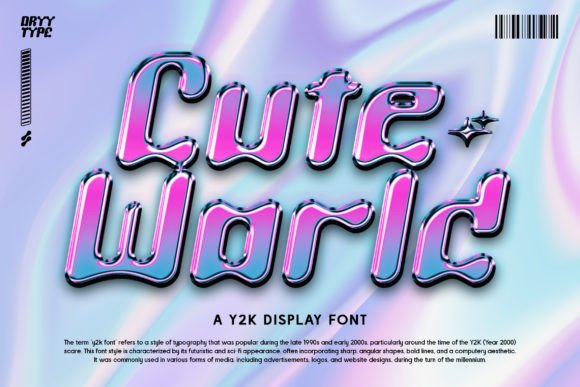
Journey into a world of whimsical charm and effervescent energy with Cute World Font, a display font family that exudes playfulness and creativity. Inspired by the infectious melodies and vibrant aesthetics of K-POP, this font is like a musical symphony frozen in time, waiting to dance across your designs.
With its adorable and inviting letterforms, Cute World Font is the perfect companion for your next DIY project, whether you're designing stickers, t-shirts, branding, or kids' clothing. Its versatility knows no bounds, allowing you to infuse any concept with a touch of delightful whimsy.
Imagine transforming your designs into charming meadows filled with colorful flowers and cheerful smiles. Each character in the Cute World Font family is meticulously crafted to evoke a sense of joy and lightheartedness, making it an ideal choice for projects that aim to capture the essence of childhood wonder and imagination.
Embrace the vibrant energy of K-POP with this font, and watch as your creations take on a life of their own. Its playful curves and bubbly shapes are sure to leave a lasting impression, inviting viewers to immerse themselves in a world where creativity reigns supreme.
Unleash your inner artist and embark on a delightful adventure with the Cute World Font. Let your imagination soar as you craft designs that radiate cheerfulness, individuality, and a touch of nostalgia. Discover the endless possibilities that await you with this captivating font family.